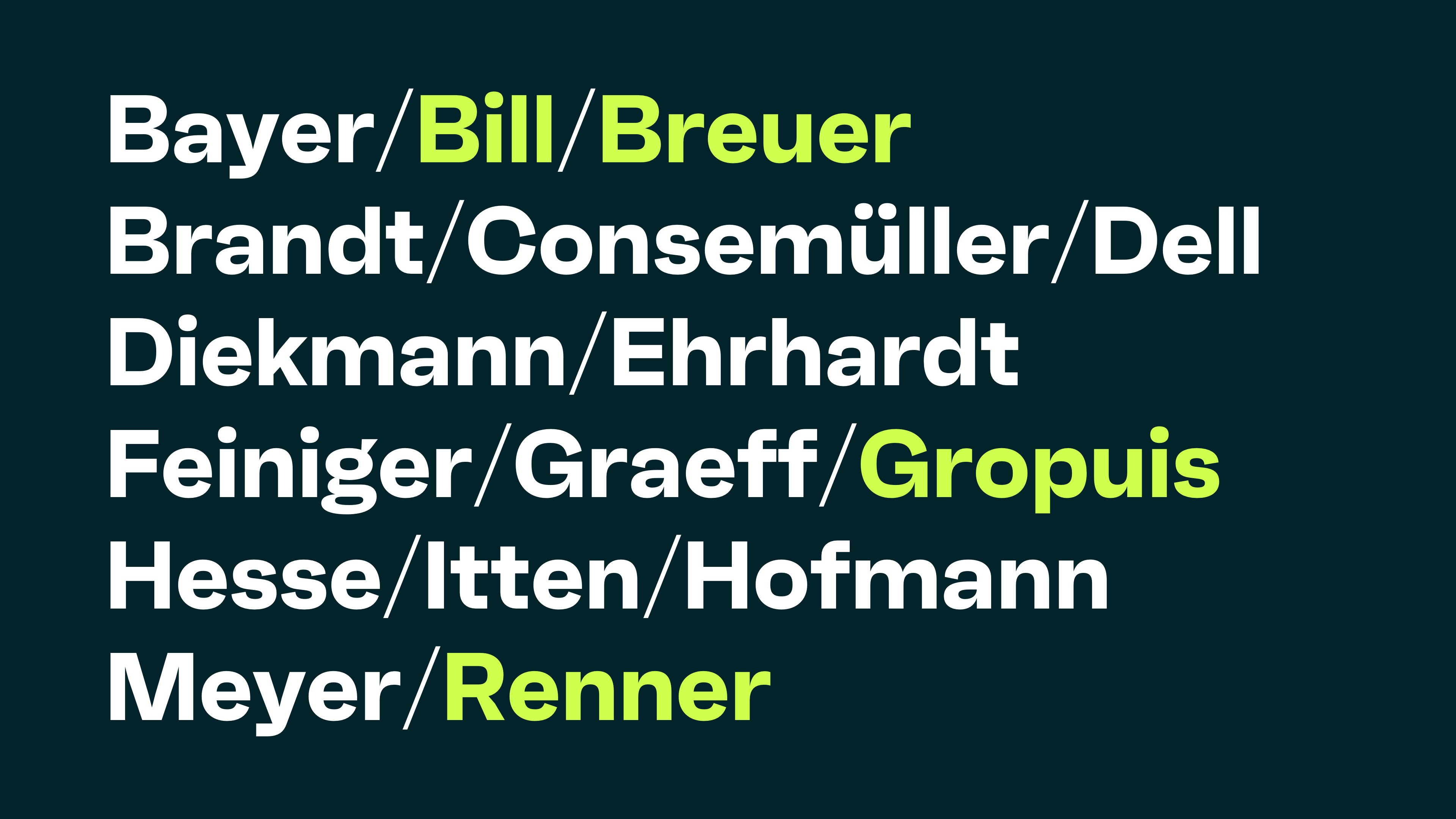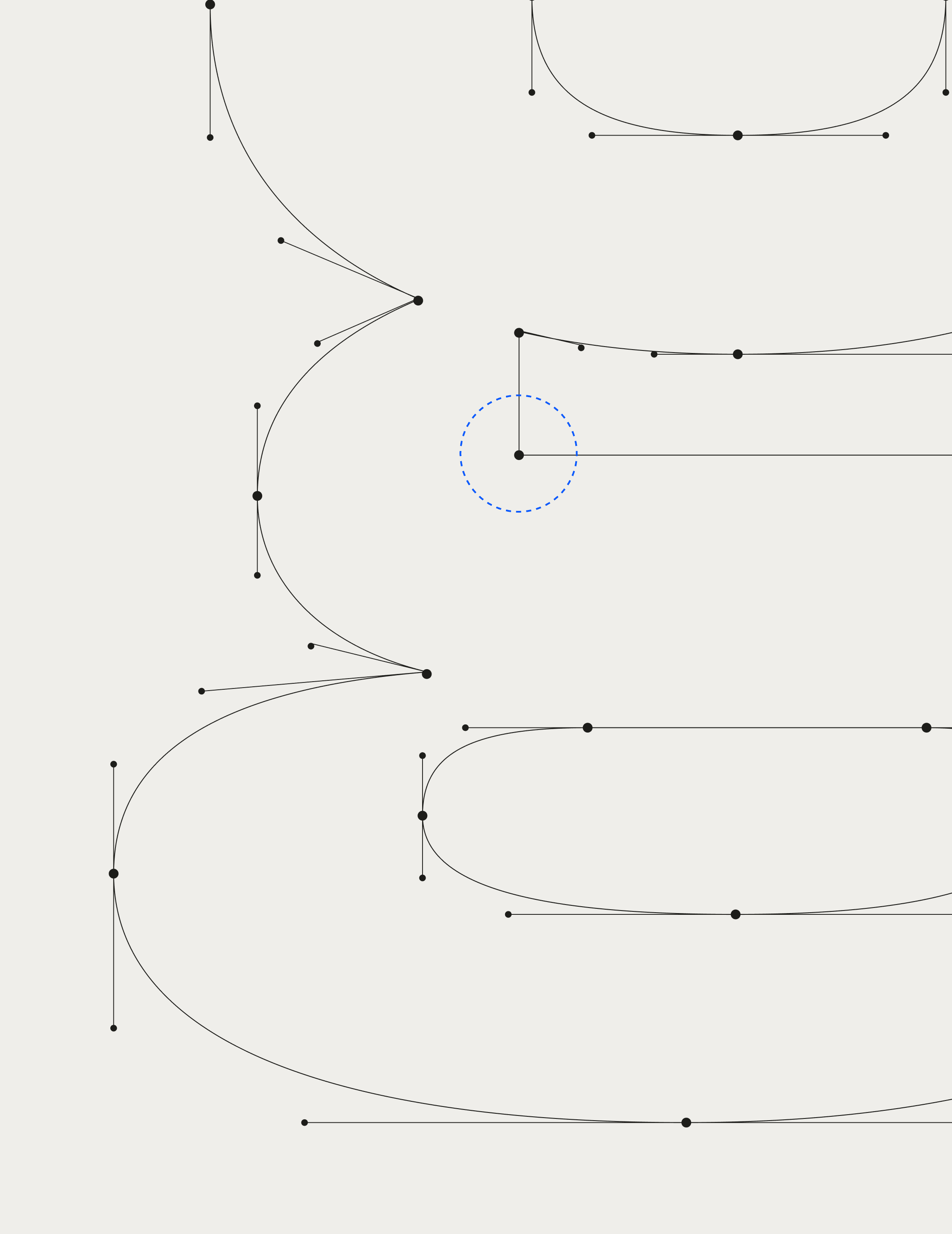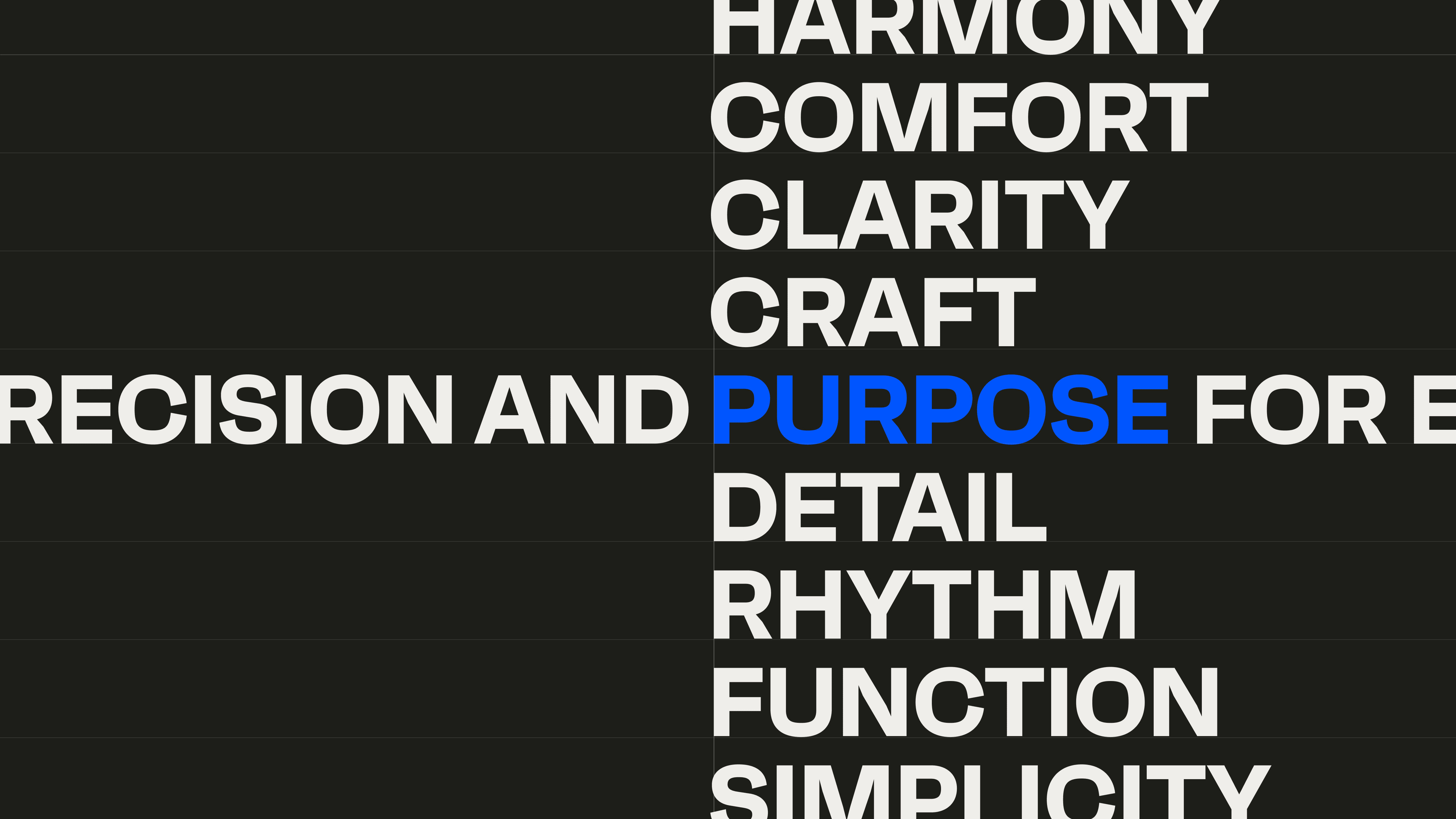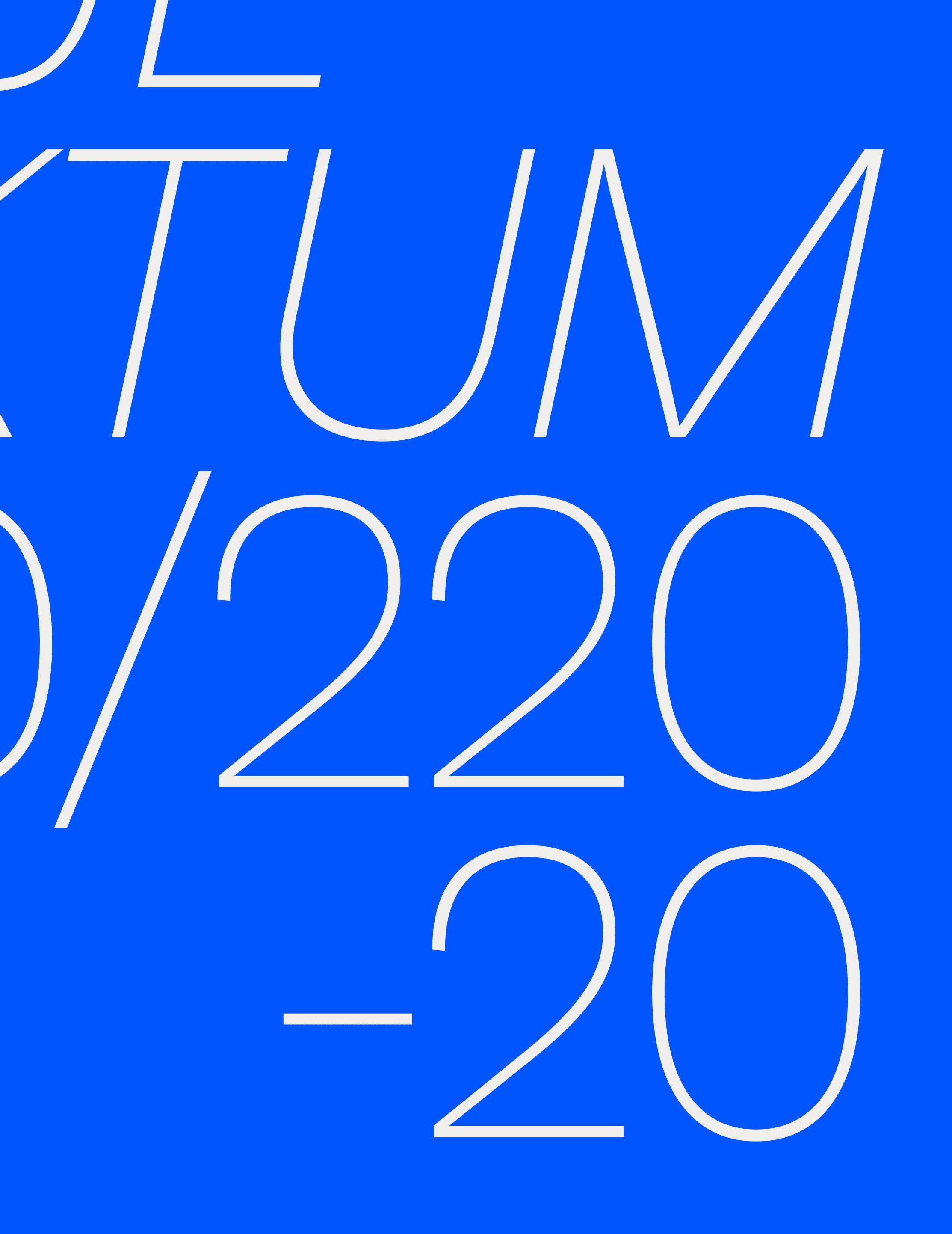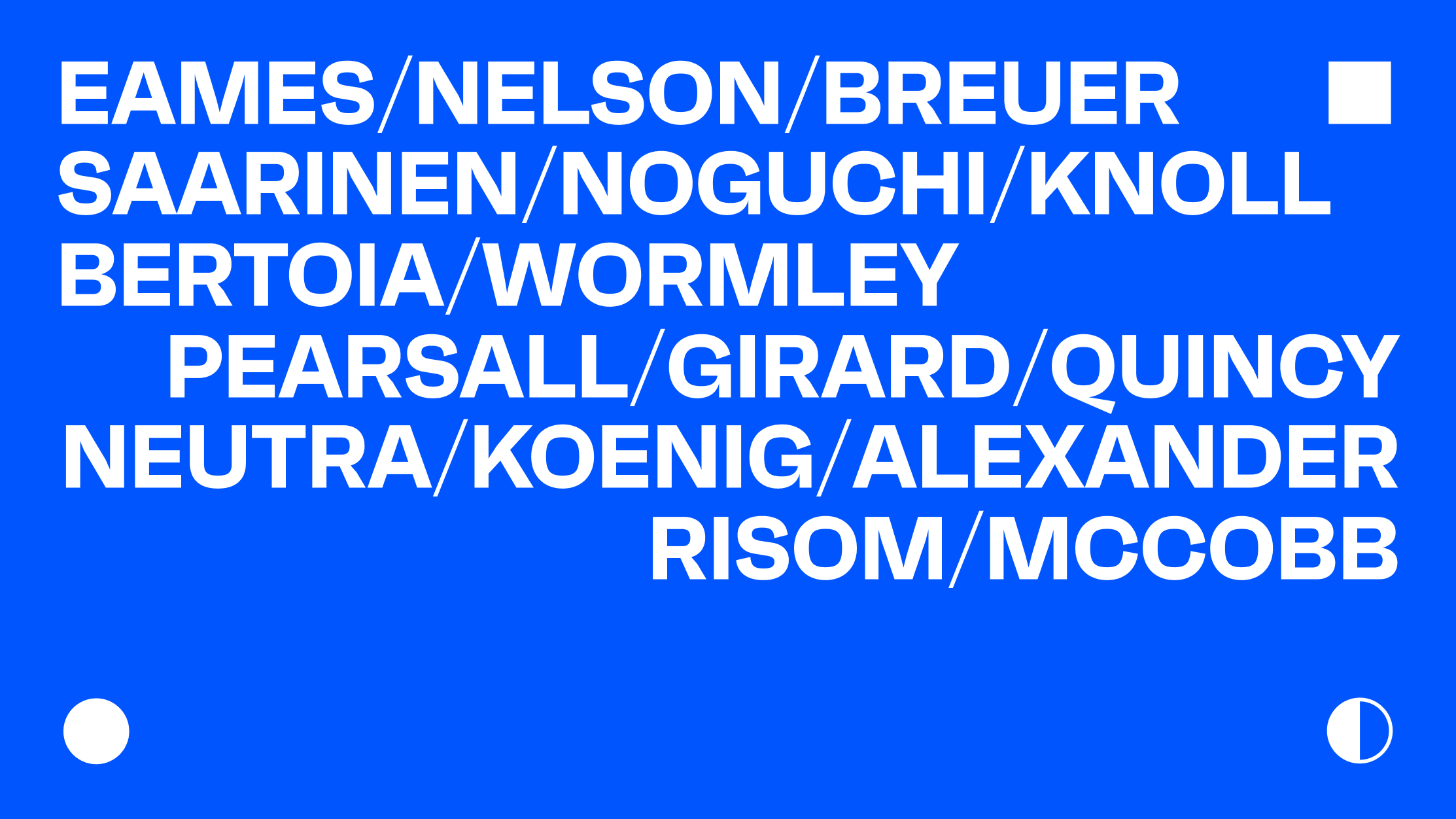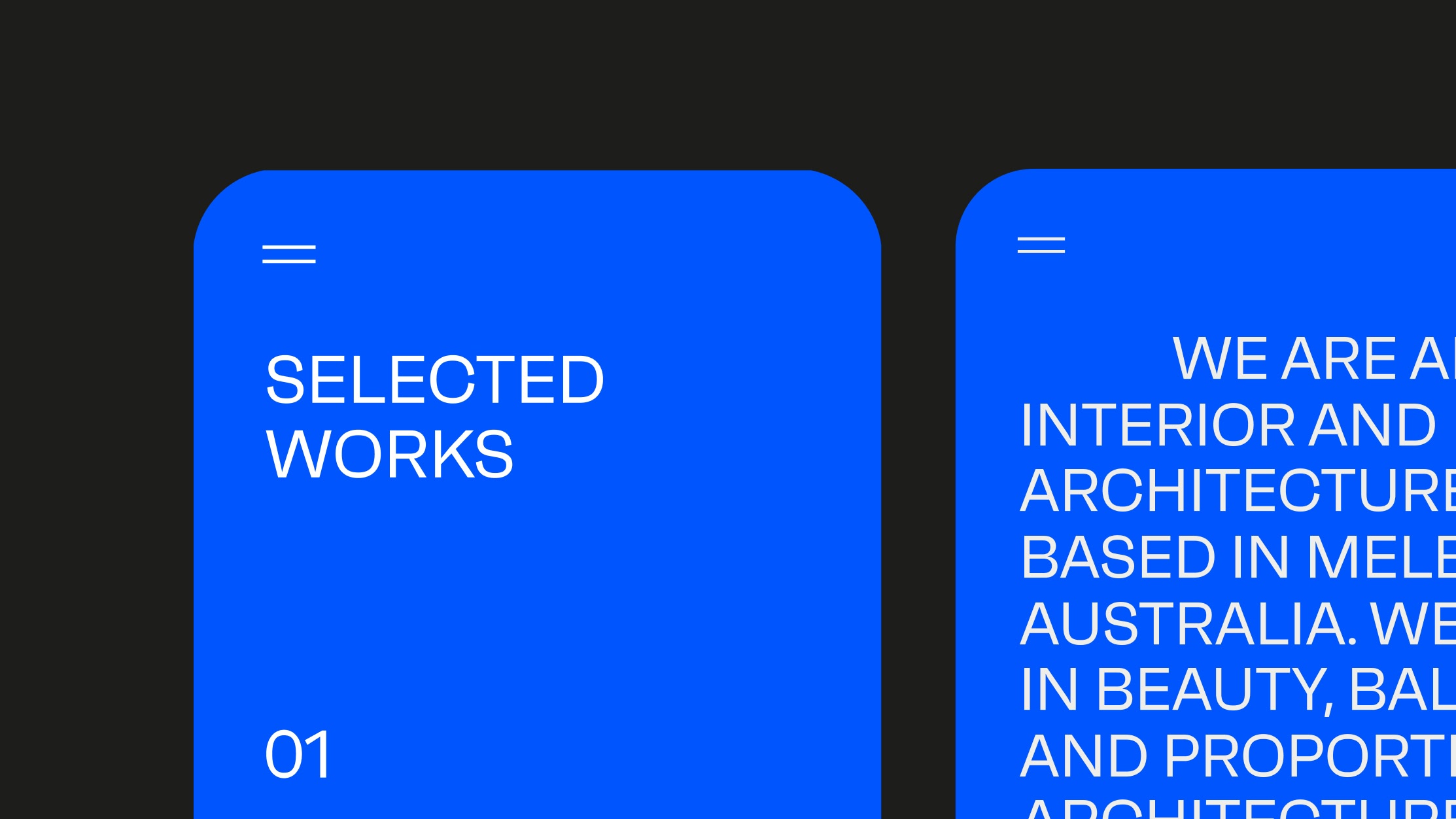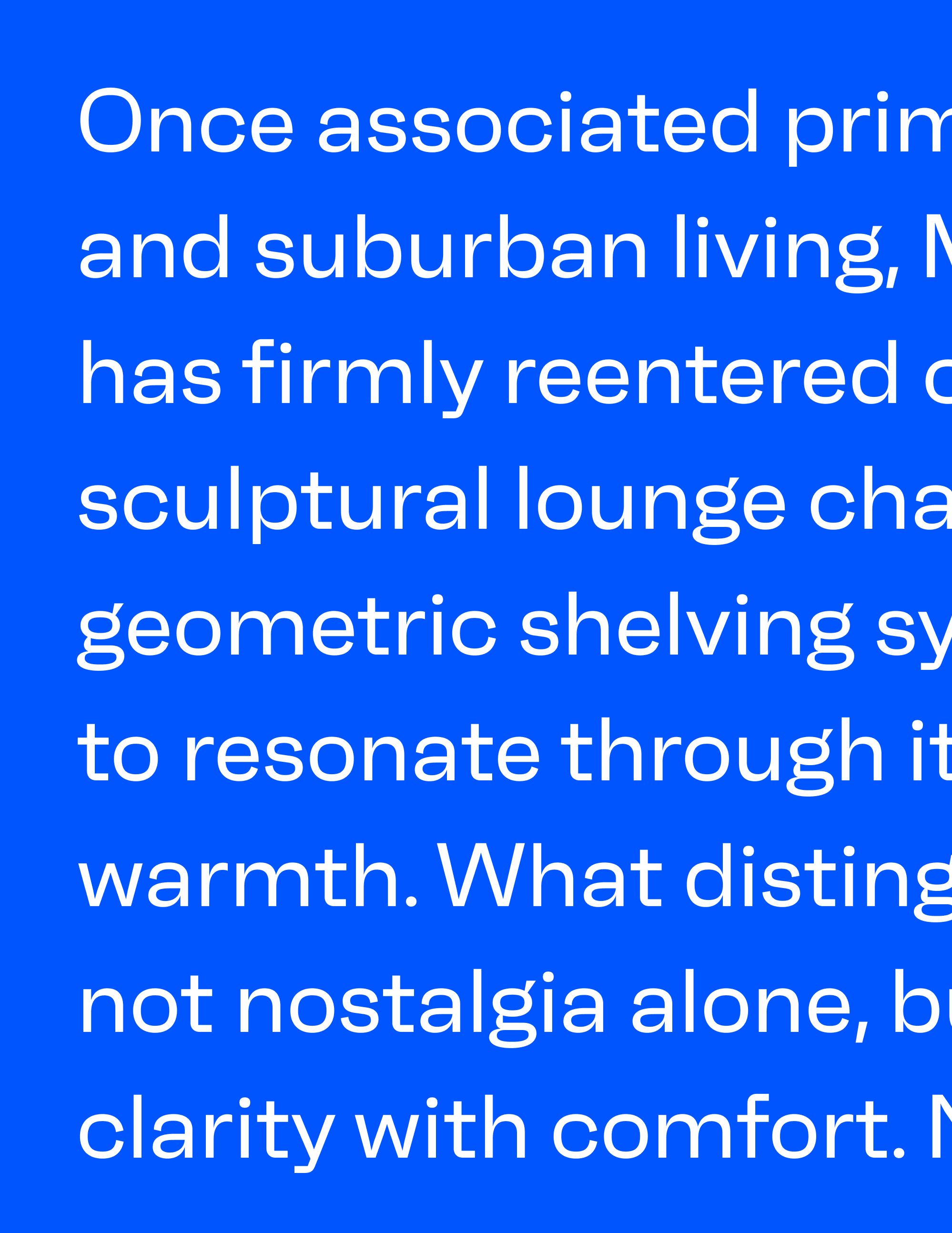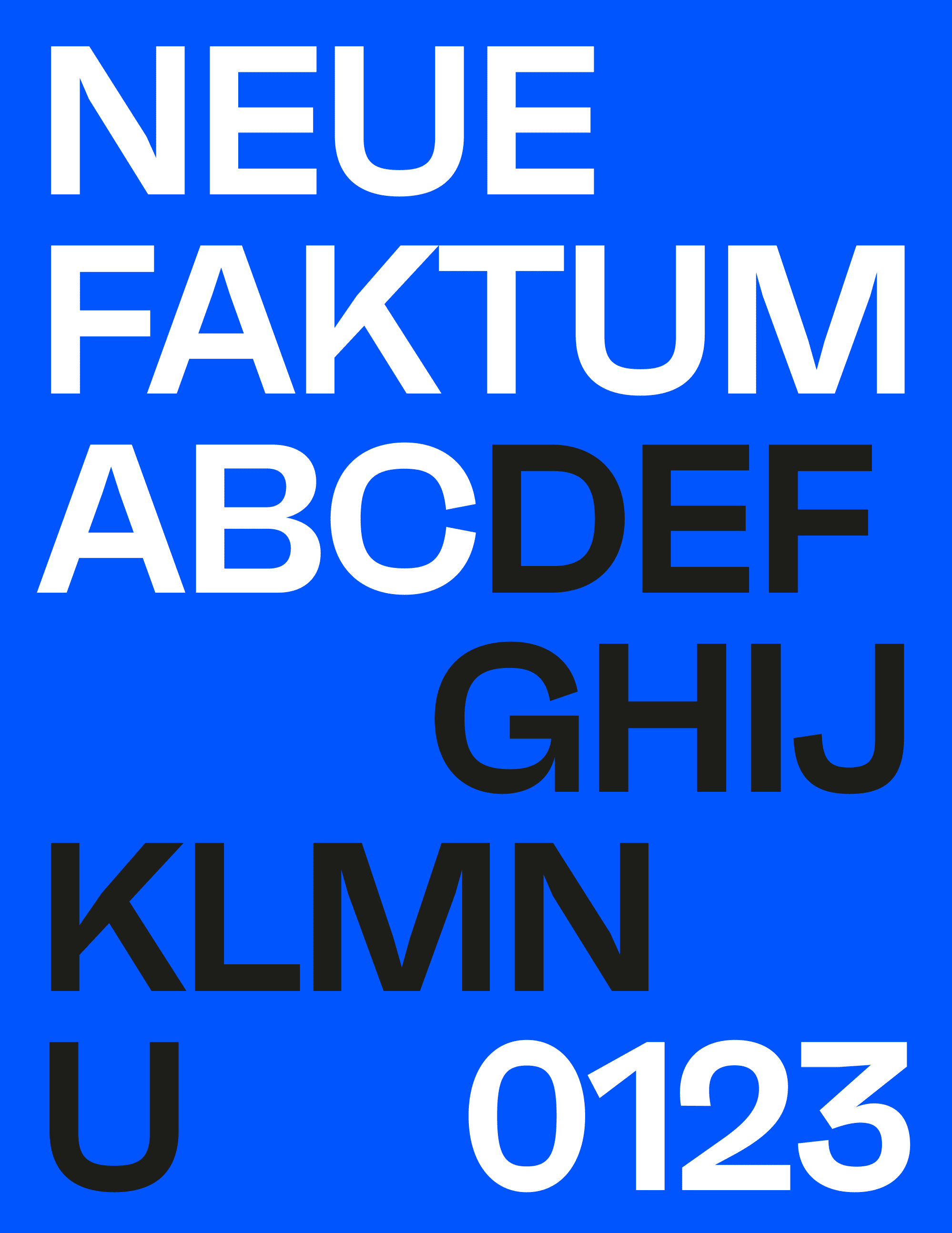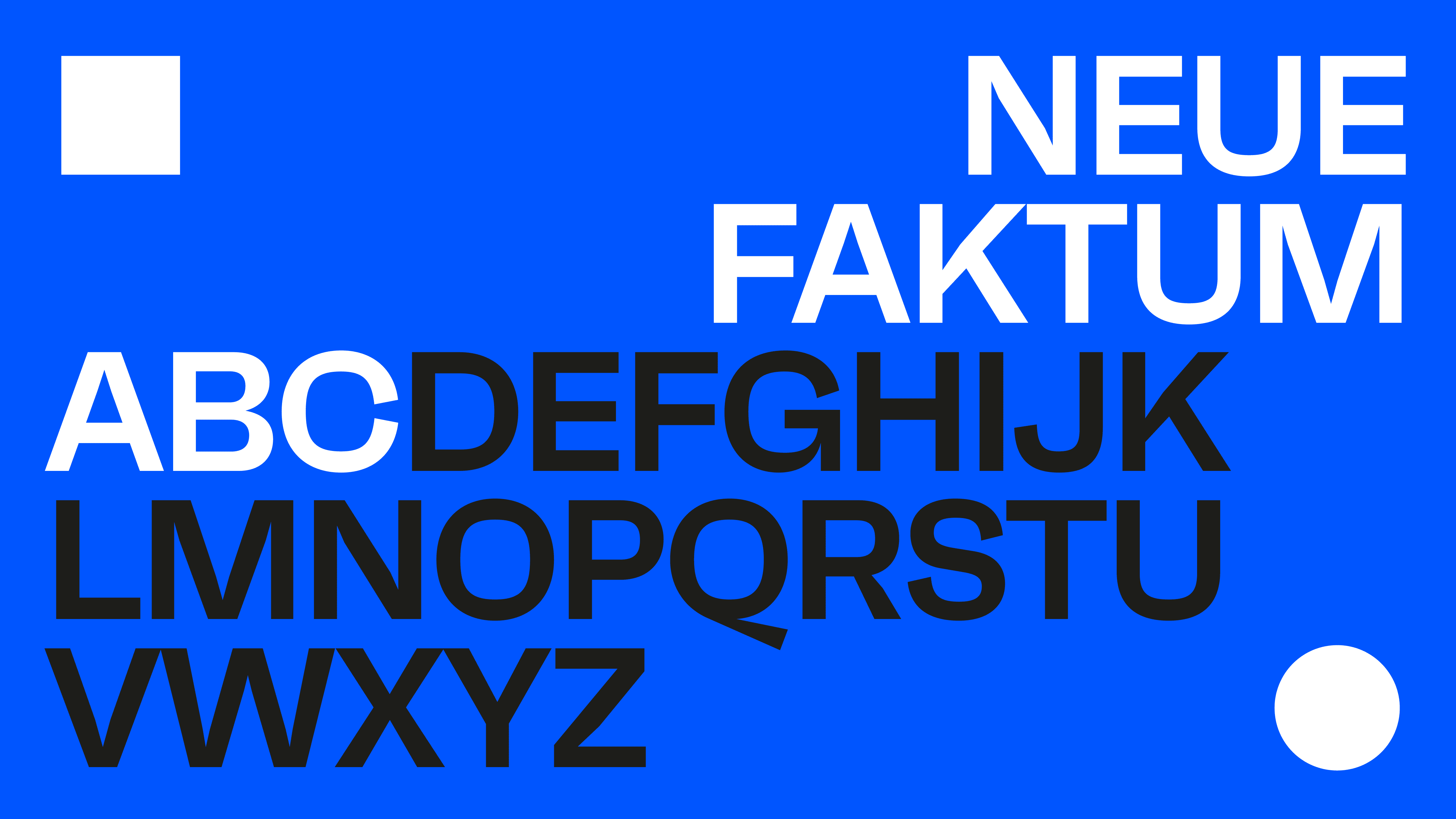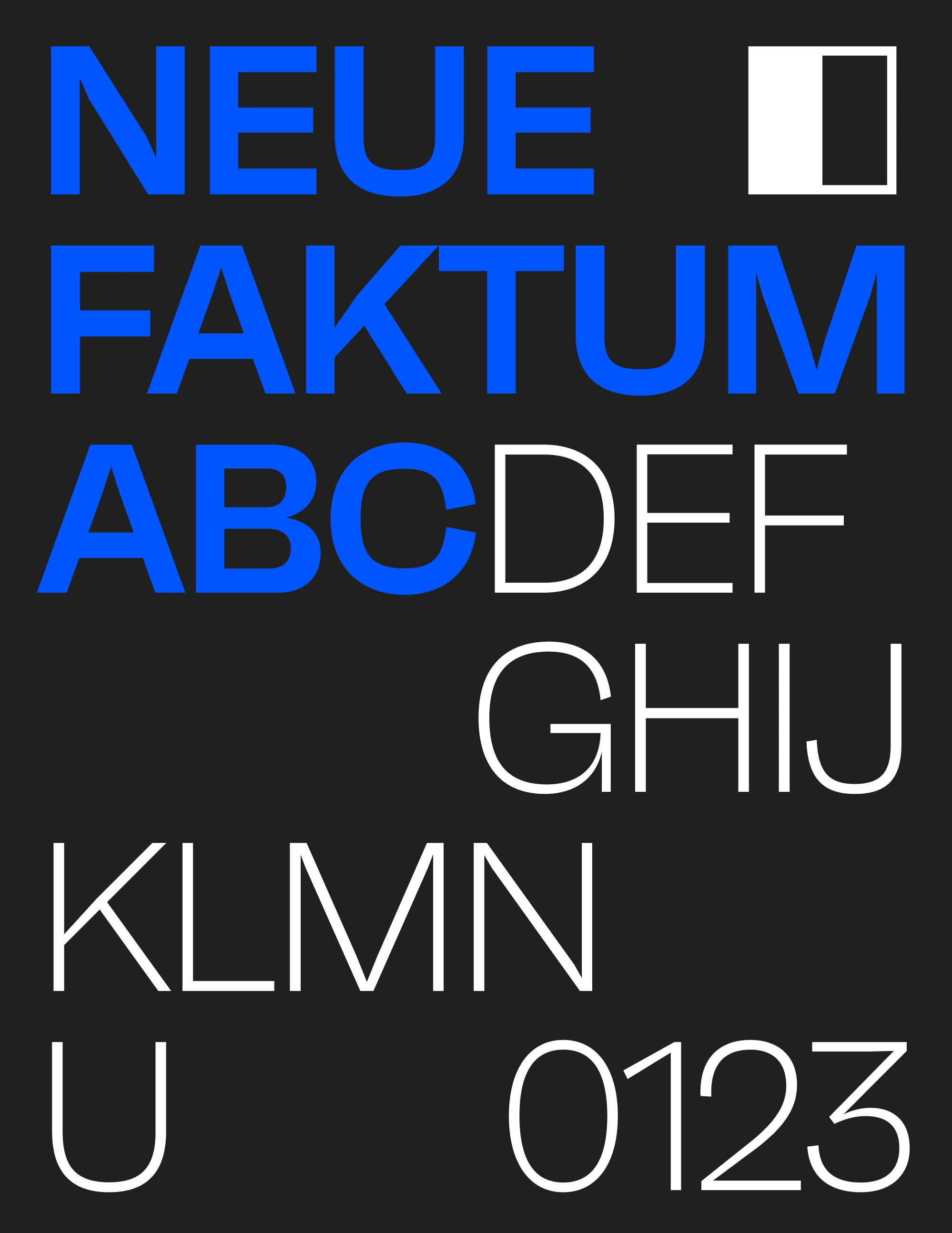
Neue Faktum balances clarity and character through the interplay of geometric structure and organic detail. Designed for display and text applications, it offers a versatile typographic voice that feels precise, approachable, and enduring. Also available in Condensed and Extended widths.